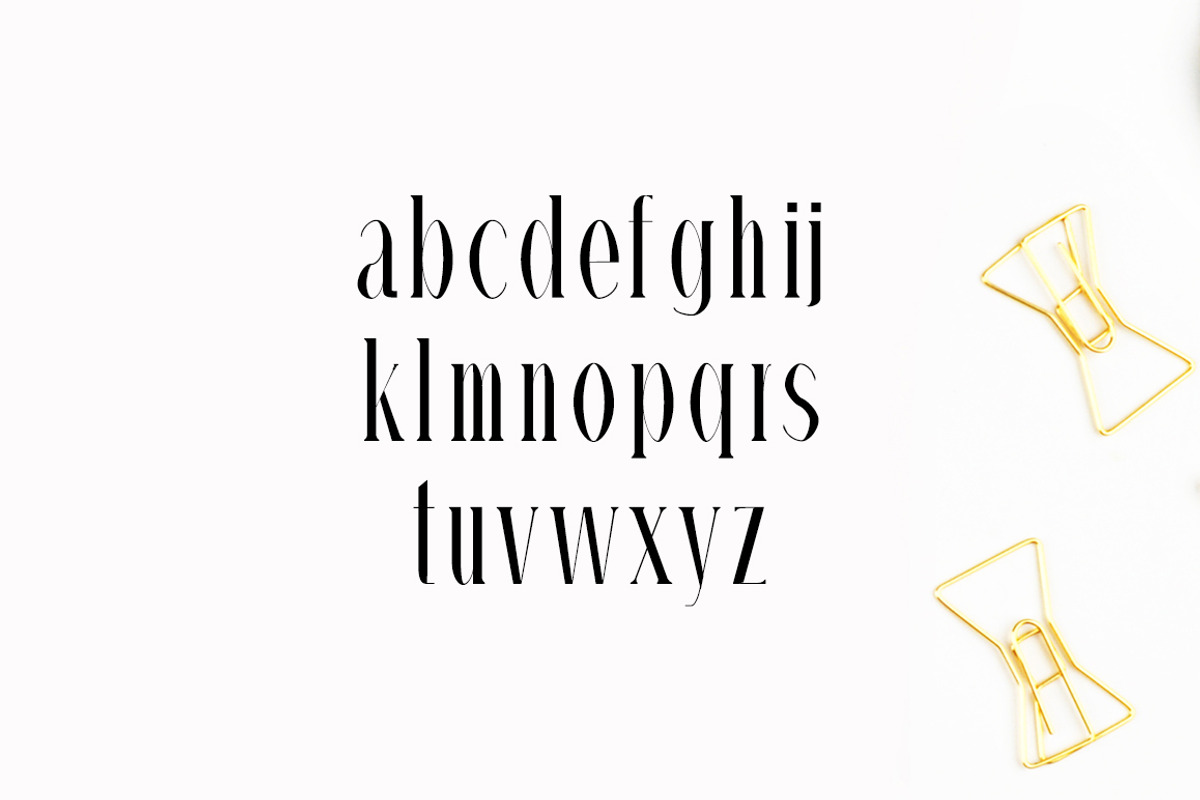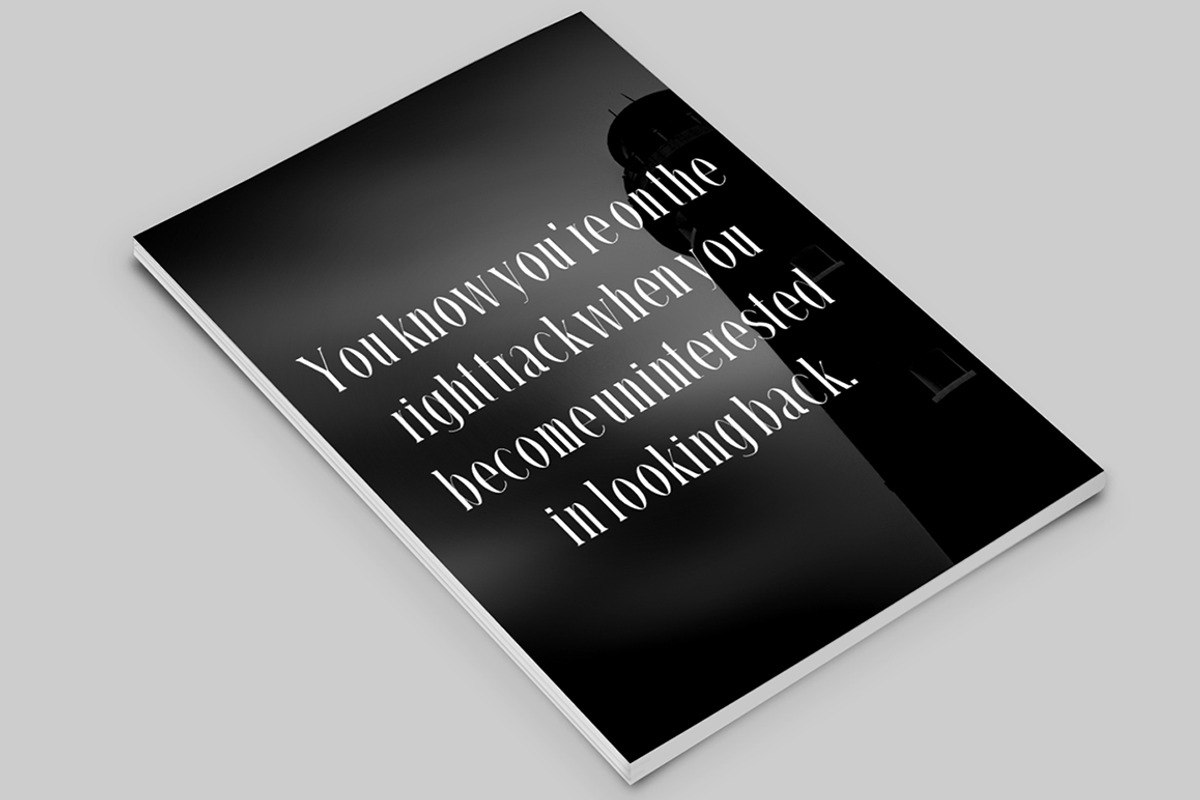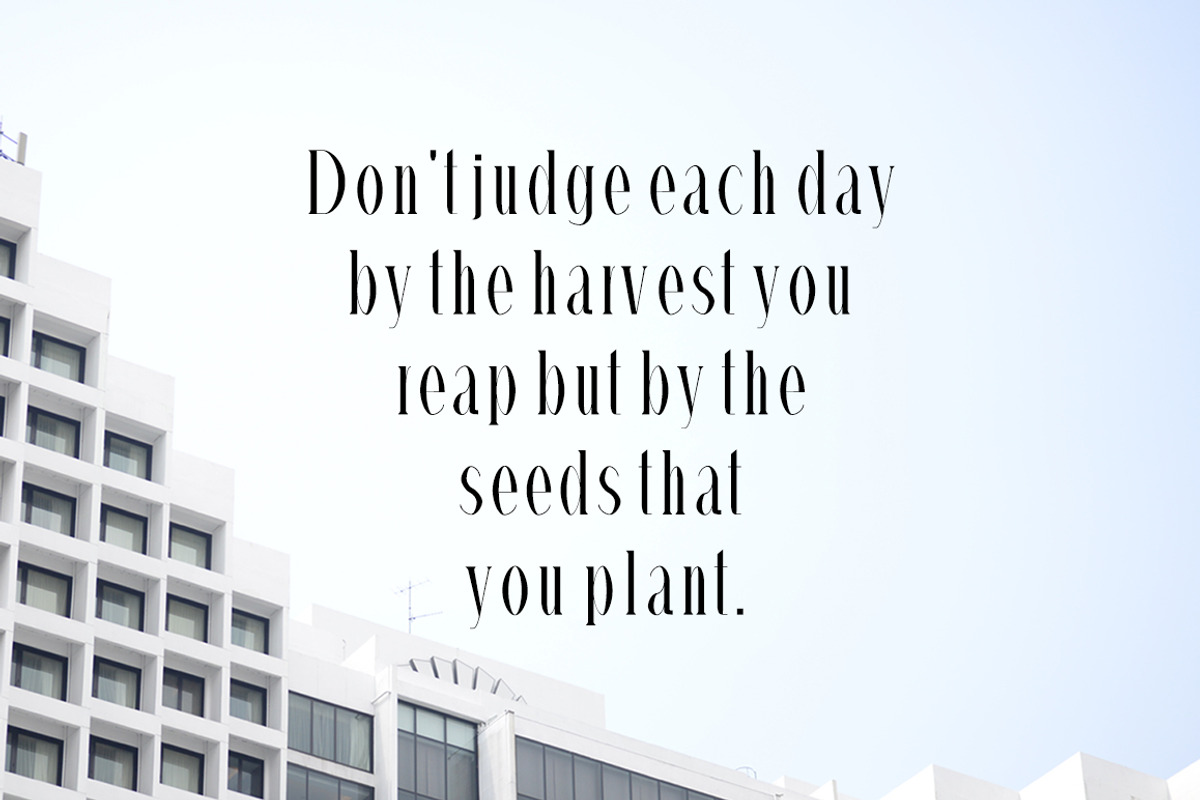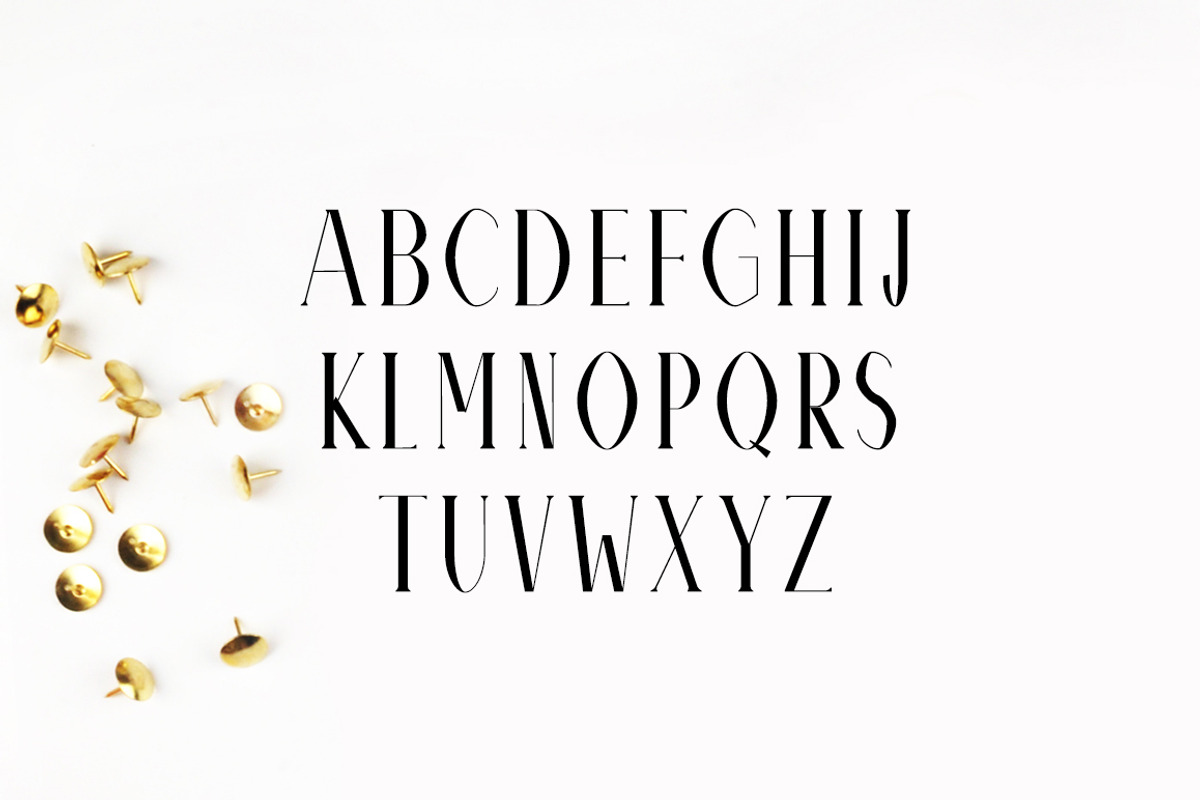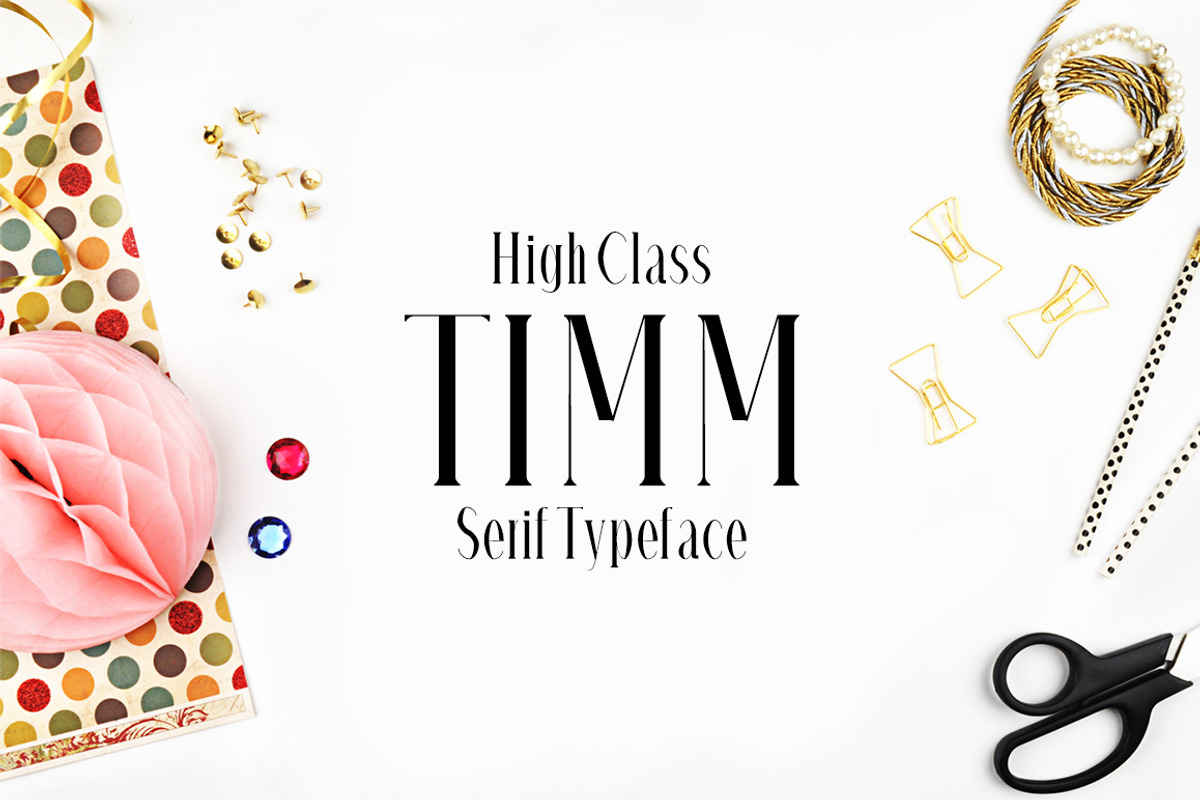
Timm Serif 4 Font Family Pack
Timm Serif 4 Font Family Pack by Creativetacos is a font selected for branding, posters, packaging, typography.
Why Timm Serif 4 Font Family Pack is worth a look
Timm Serif 4 Font Family Pack by Creativetacos fits naturally into Branding, posters, packaging, typography.